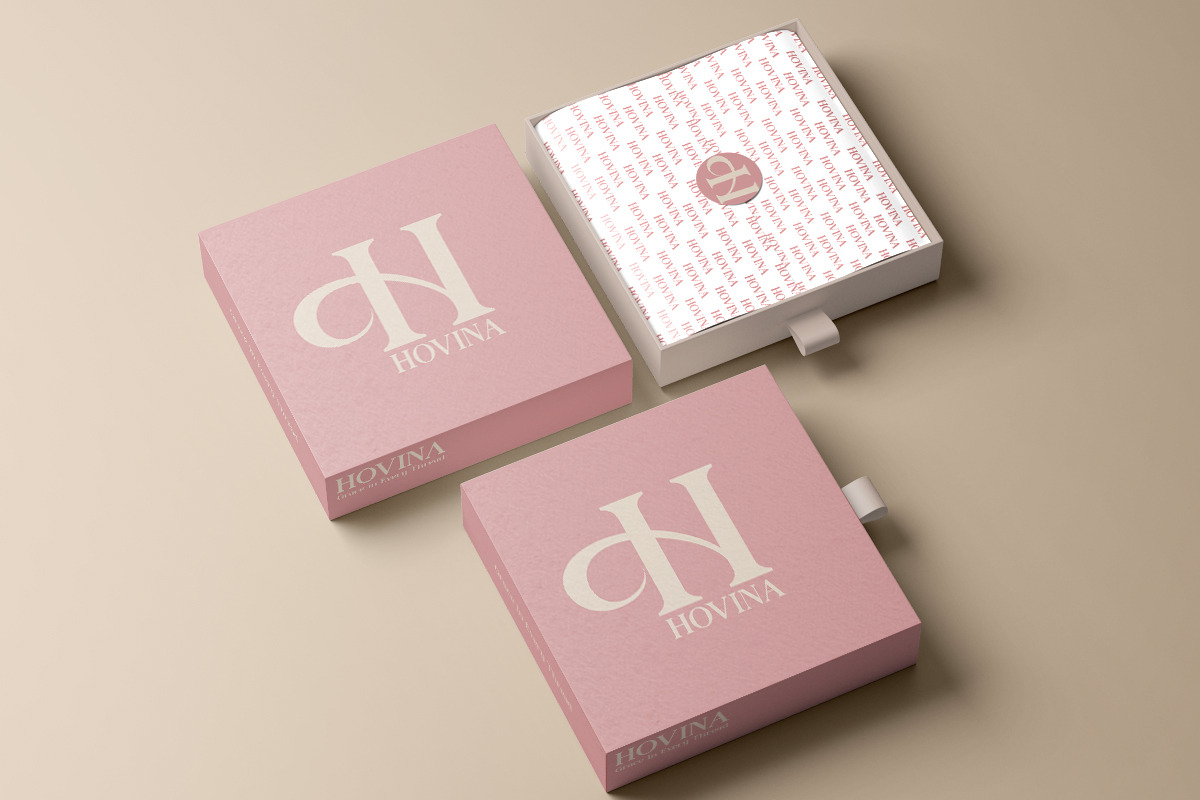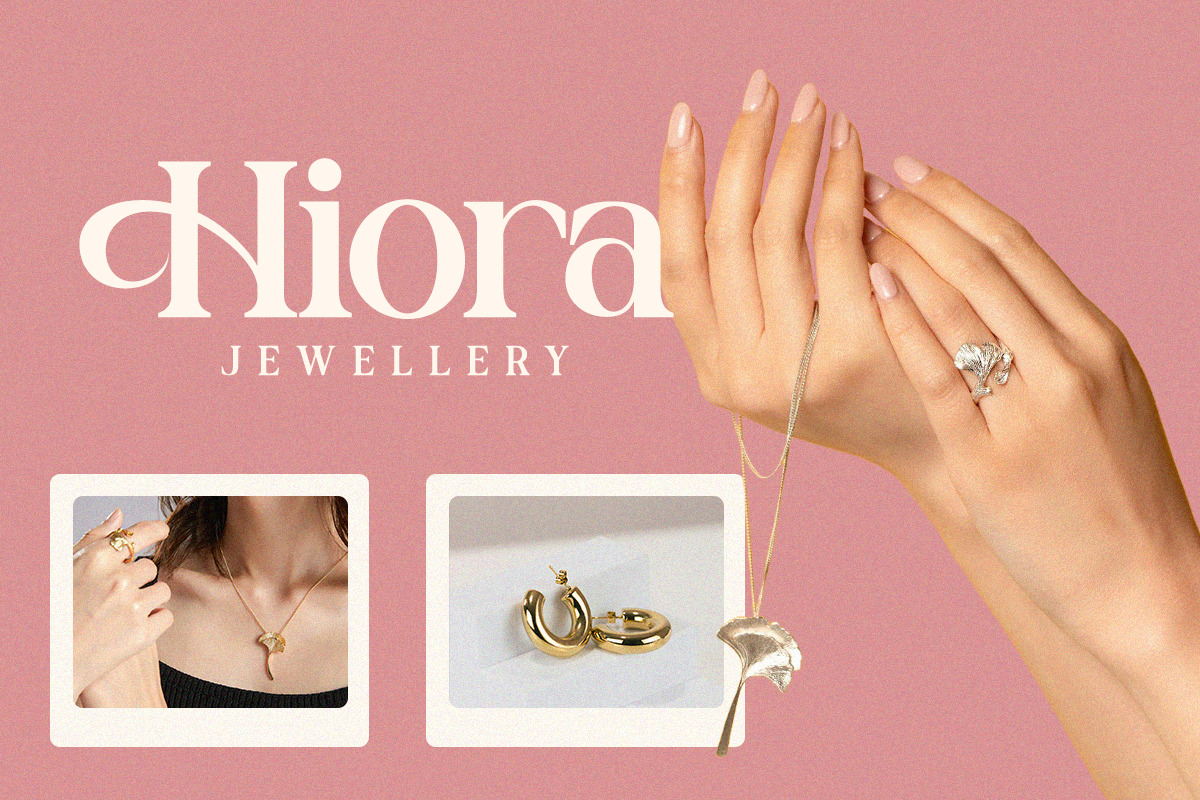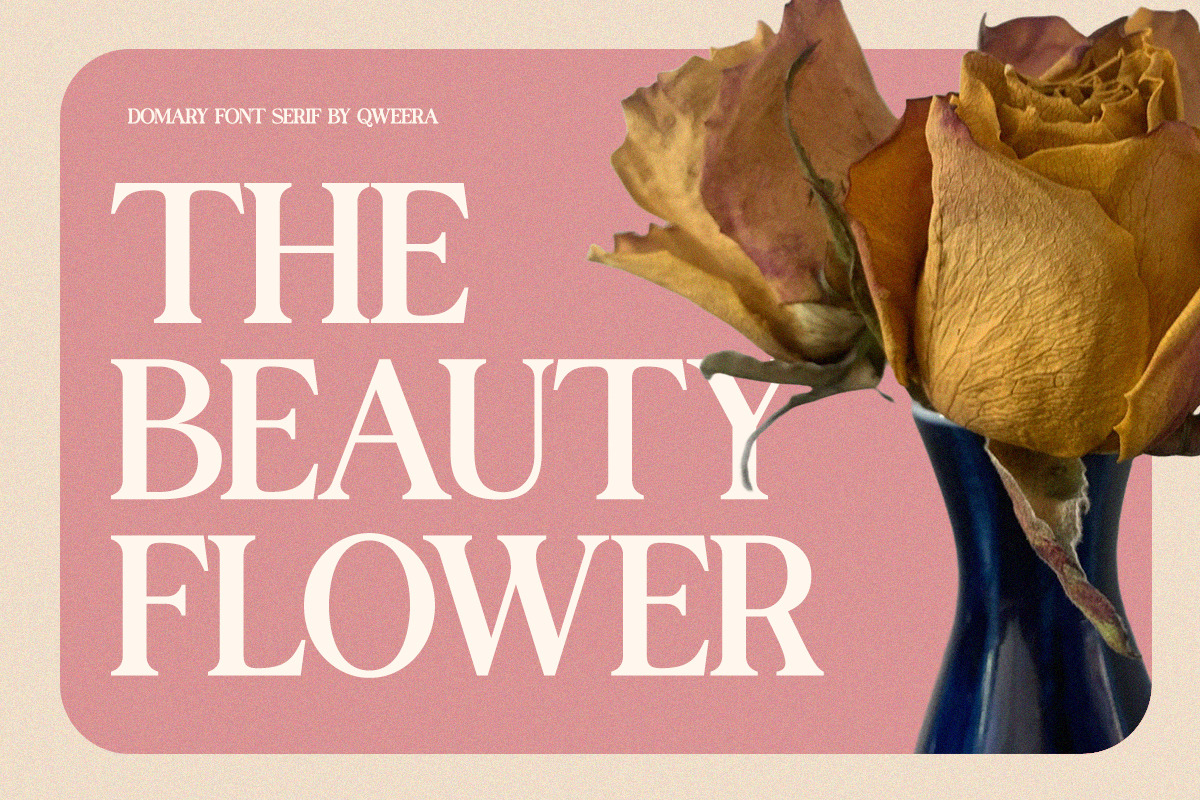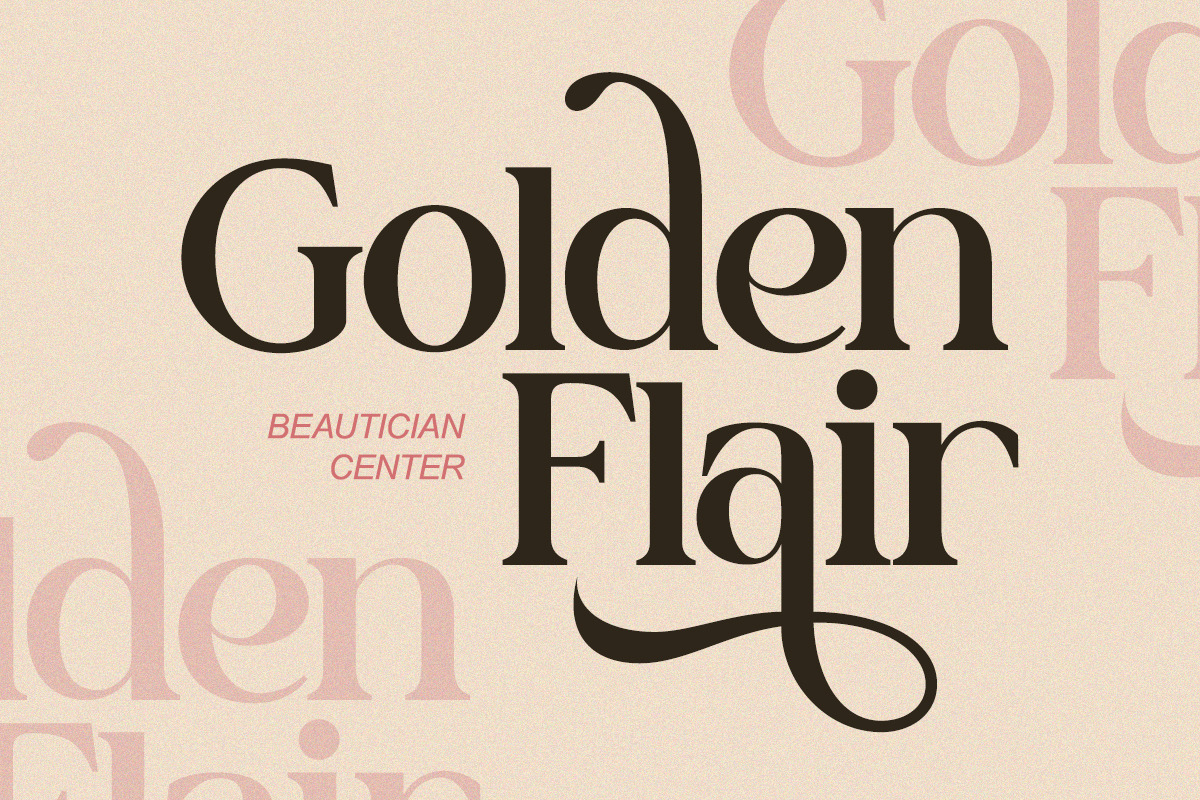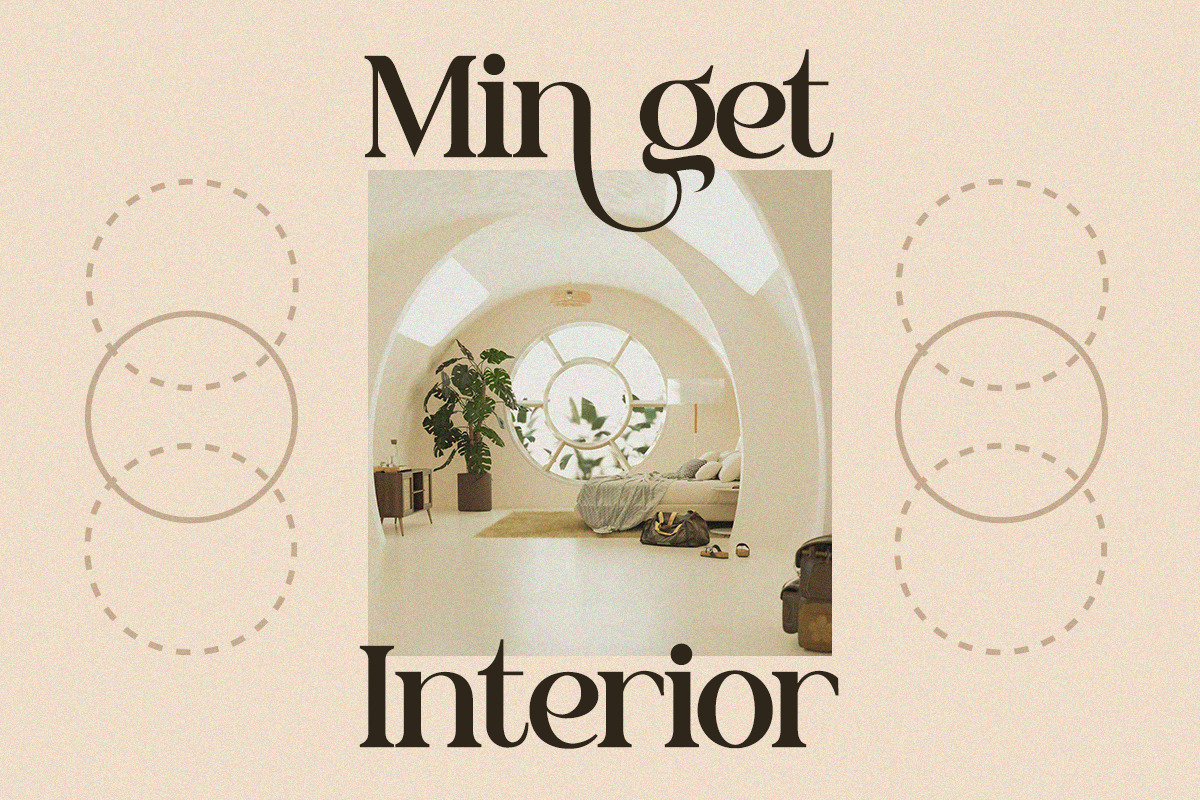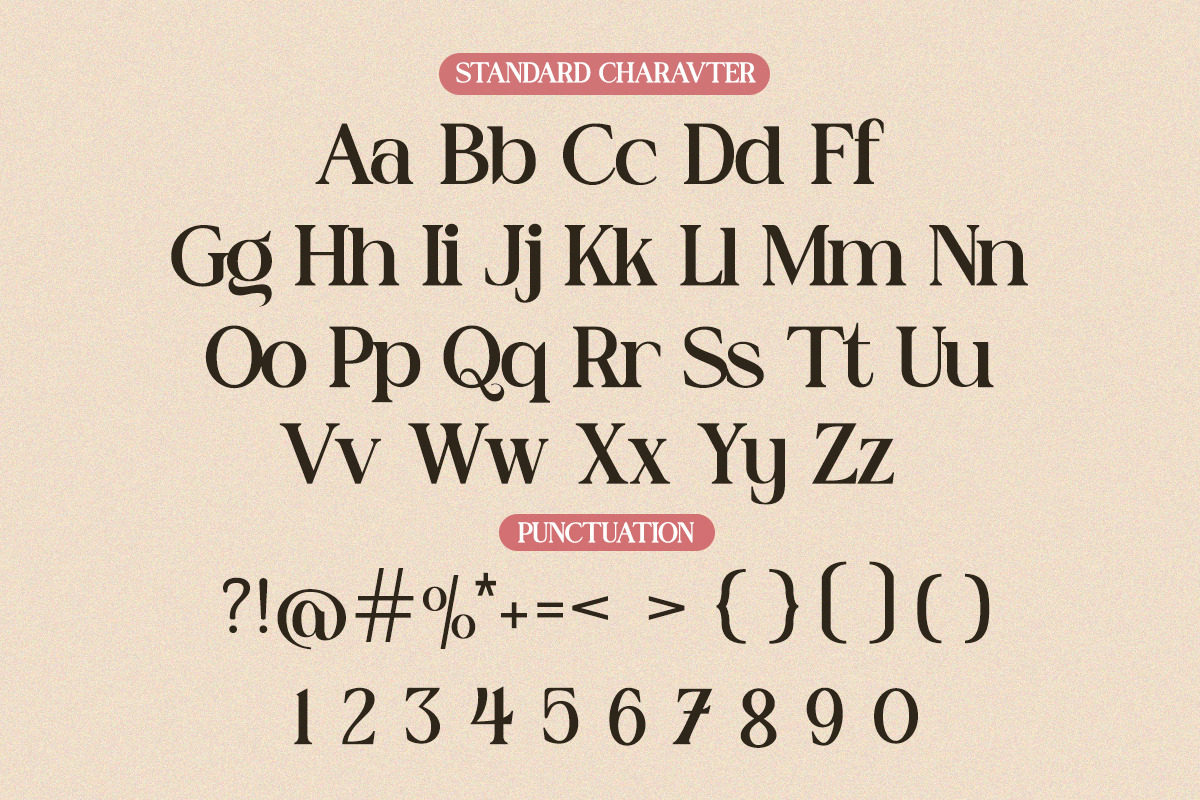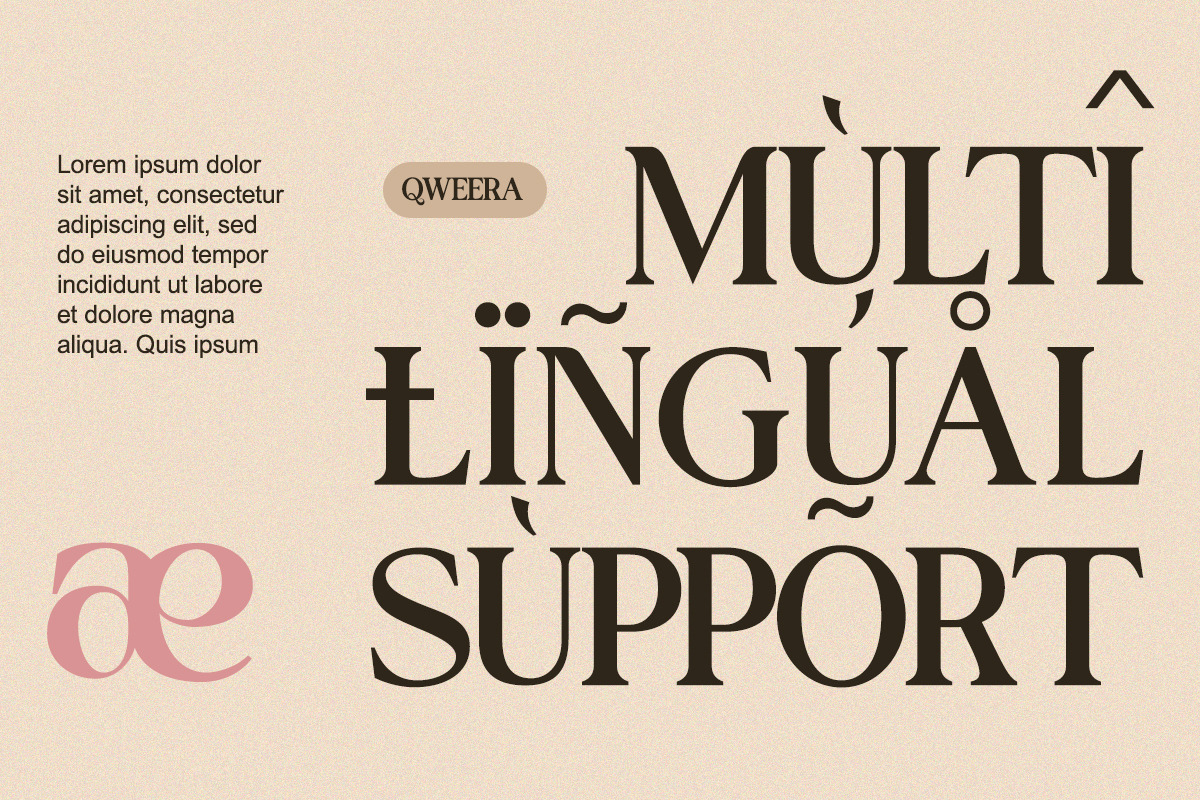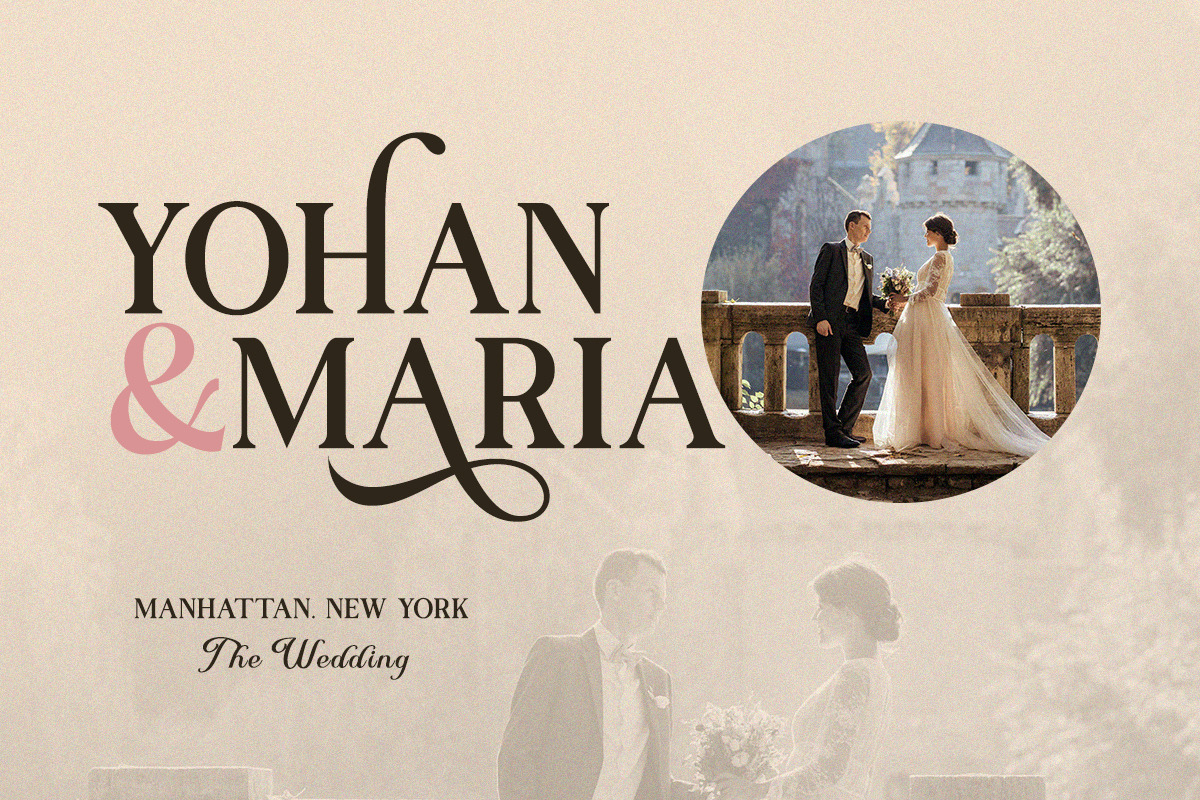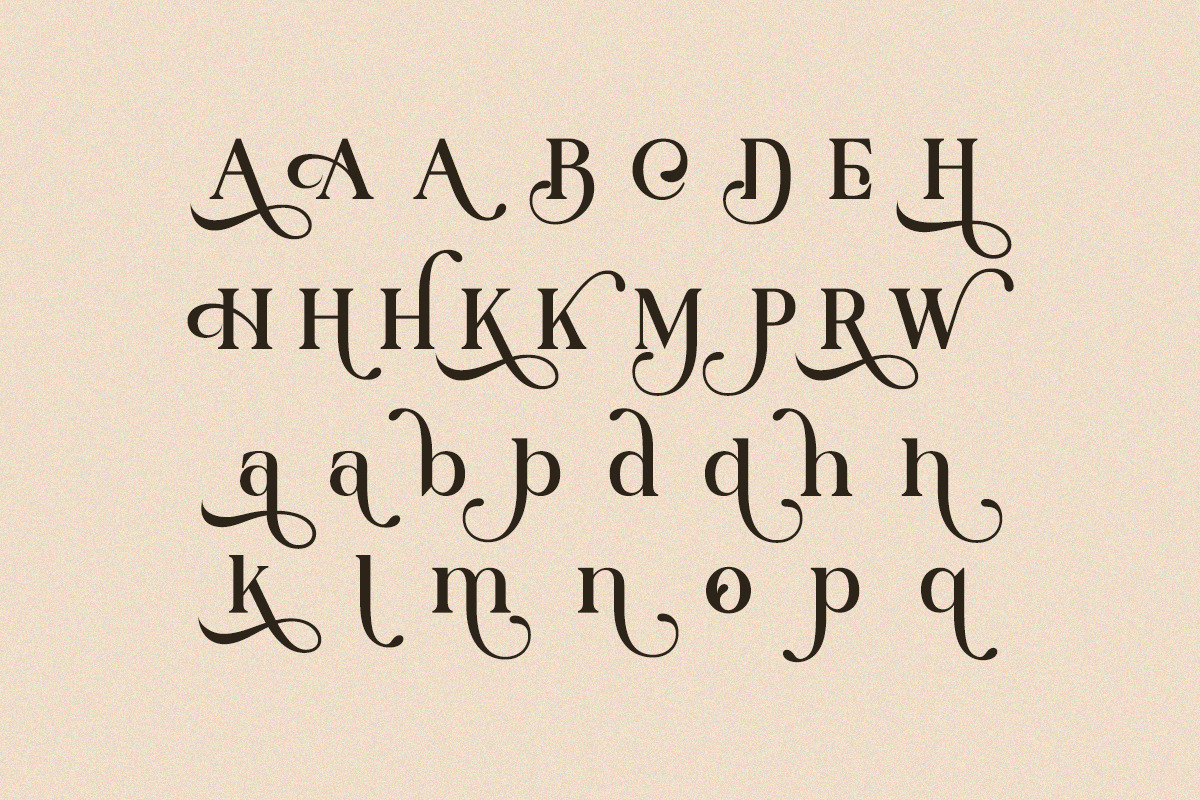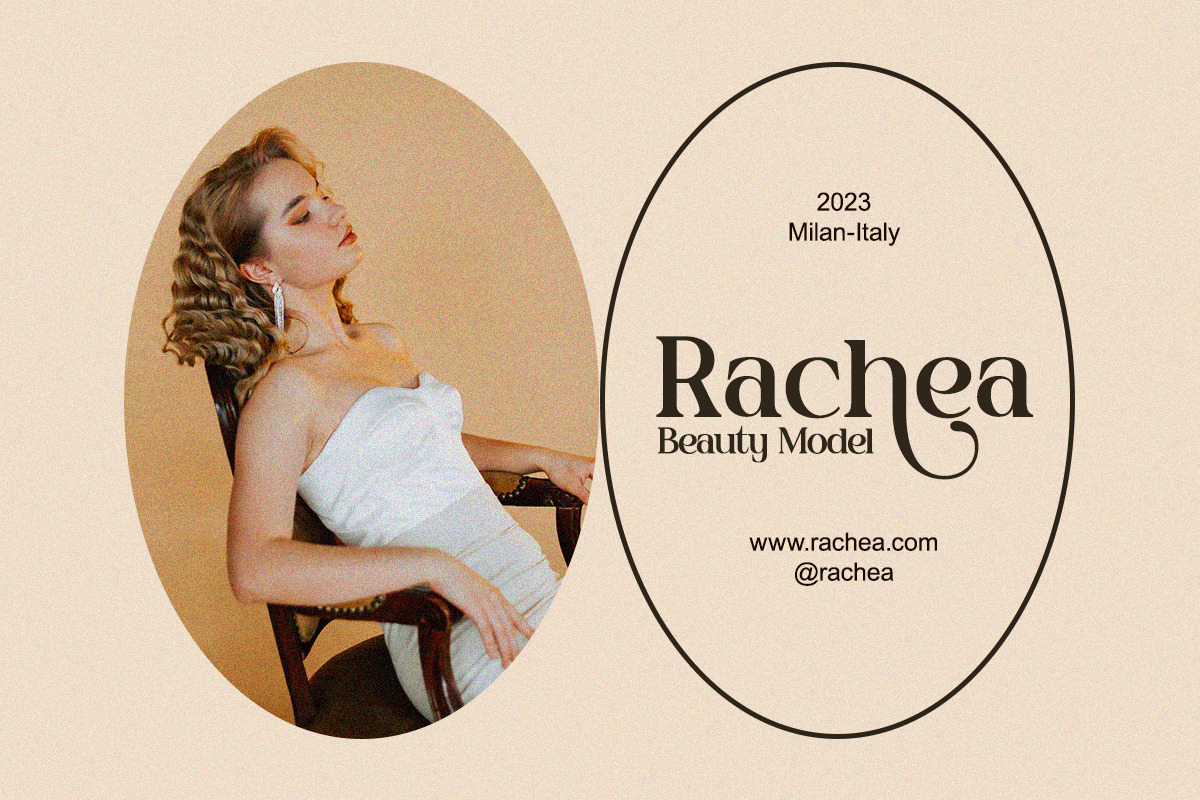
Domary - Modern Elegant Luxury Serif
Domary is an elegant modern serif font with refined curves, stylish ligatures, and subtle luxury in every character.
Crafted with a feminine touch and fashionable precision, Domary shines in high-end branding, wedding logos, magazine editorials, and social media aesthetics. A balance of soft elegance and professional edge makes this font perfect for those who want to exude beauty, calm, and class in their typography.
Domary is elegance redefined for the modern era.
- Regular & Italic
- Gorgeous ligatures
- Elegant stylistic alternates
- Wedding stationery
- Beauty & skincare branding
- Fashion editorial layouts
- Social media content
- Elegant logo design
- Feminine product packaging
Domary brings soft luxury and refined power into every layout.